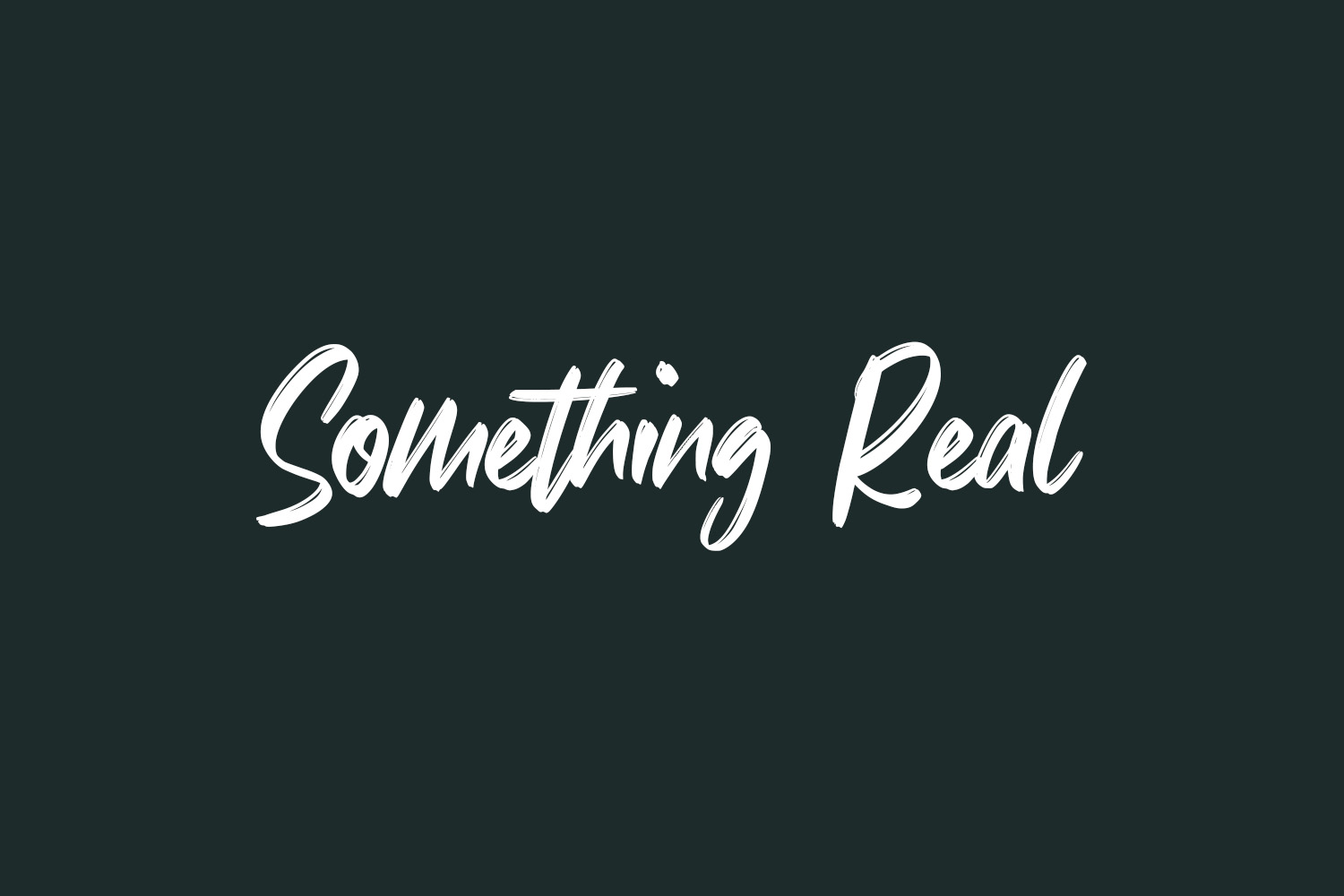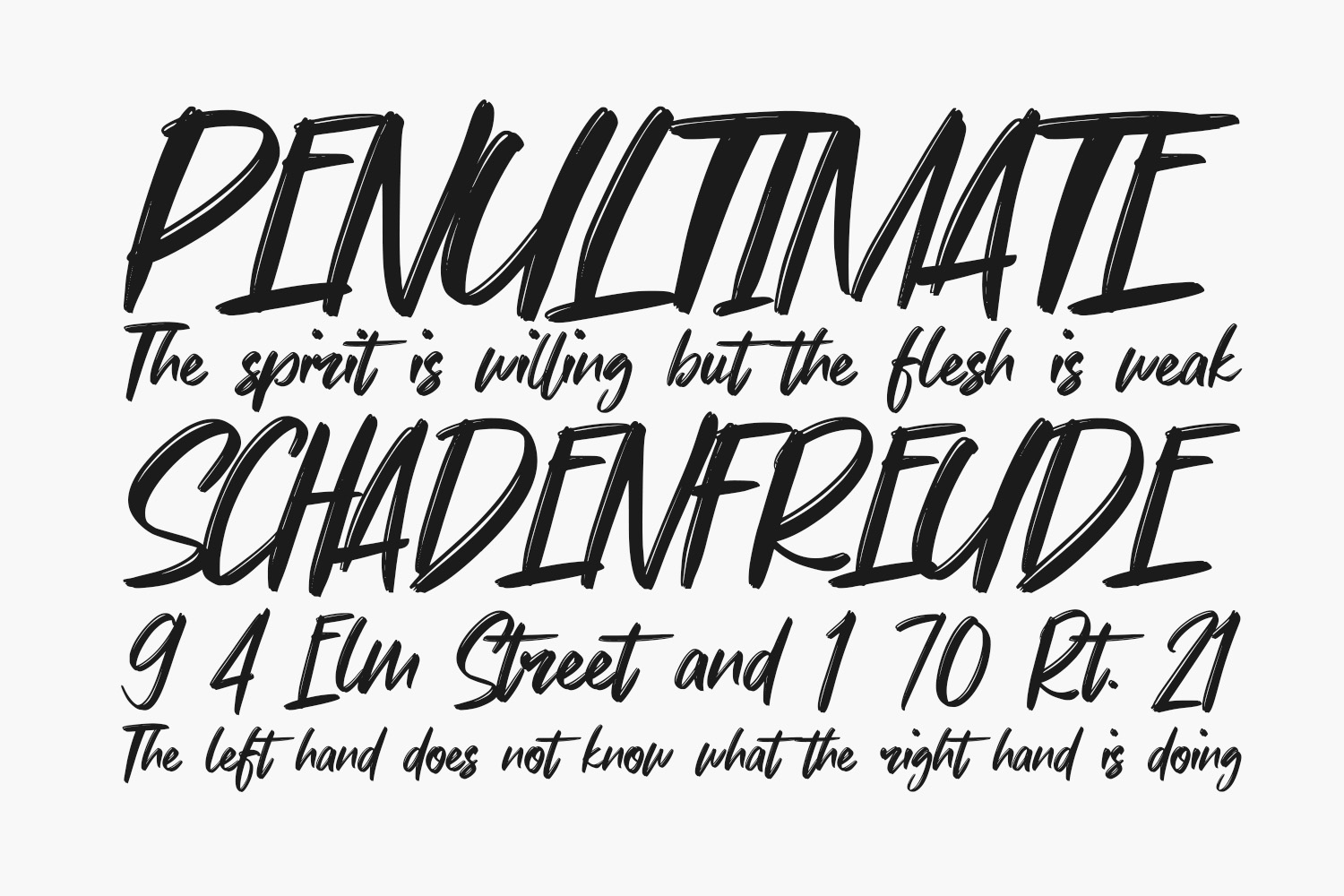
Discover the enchanting elegance of Something Real Free Font, a delightful script font showcasing playful characters that dance gracefully along the baseline. Infuse your most creative ideas with the charm of this font and witness how it effortlessly elevates them, making them truly stand out. Something Real Free Font is free for personal use only. Please purchase the full version for commercial use.